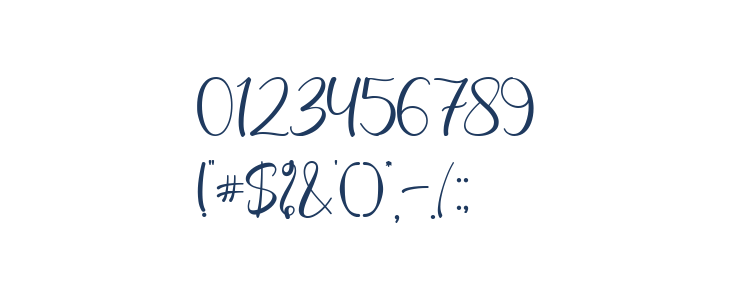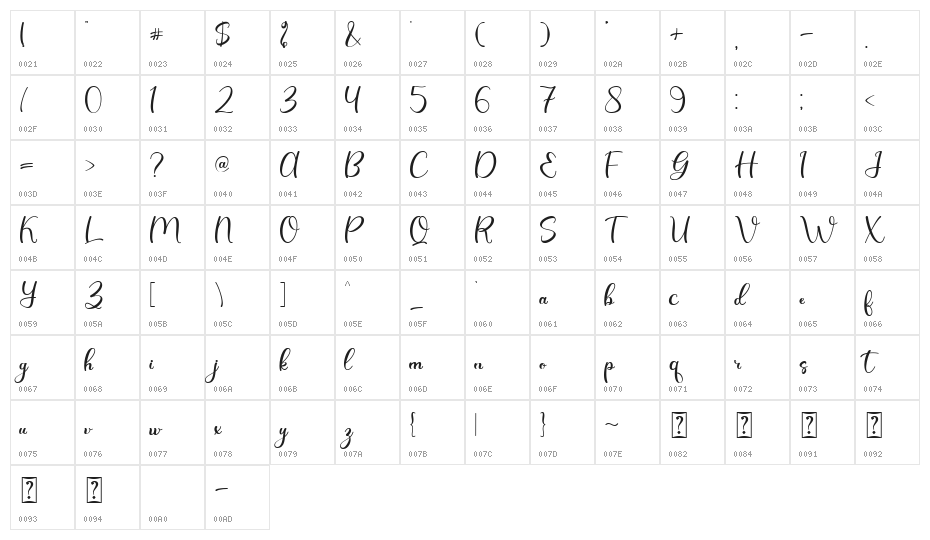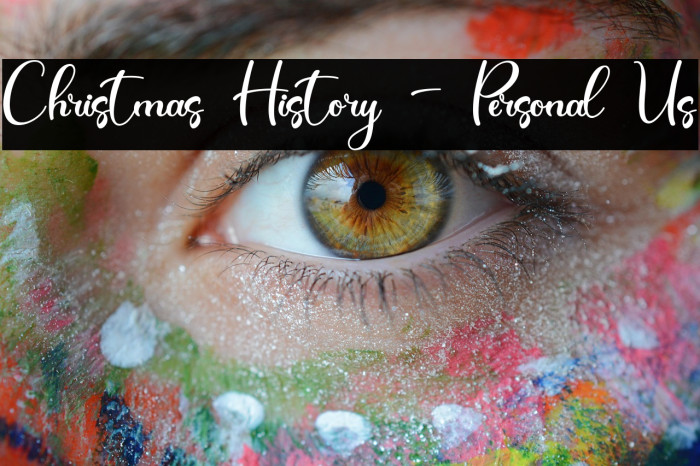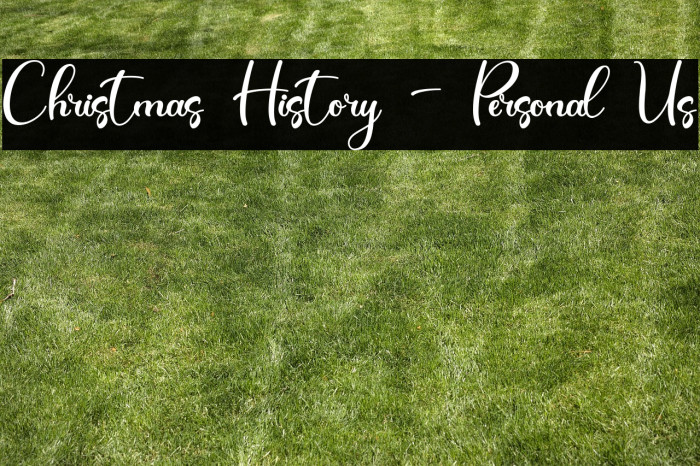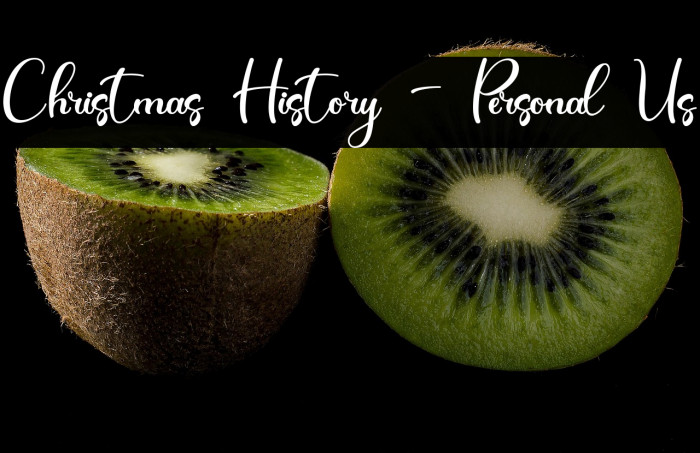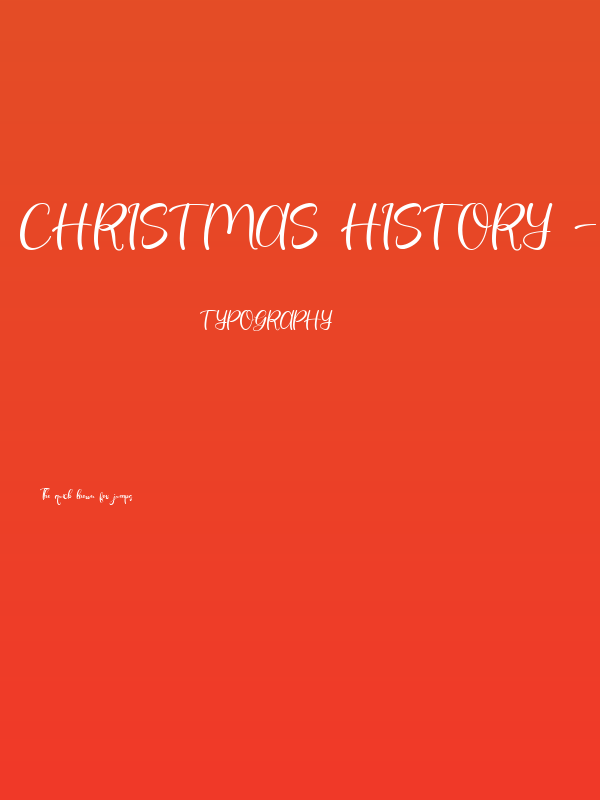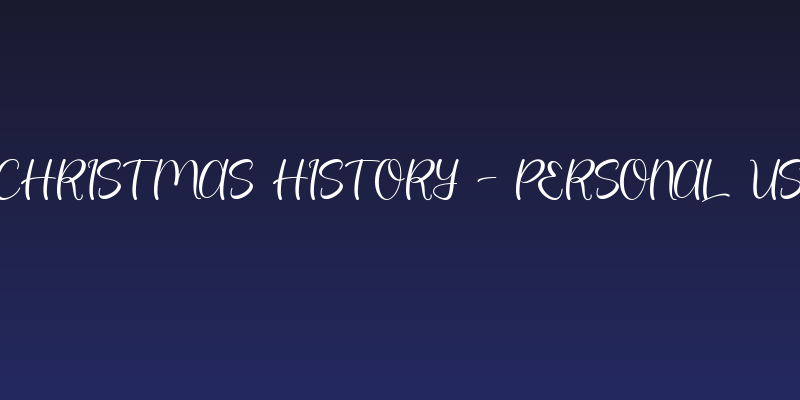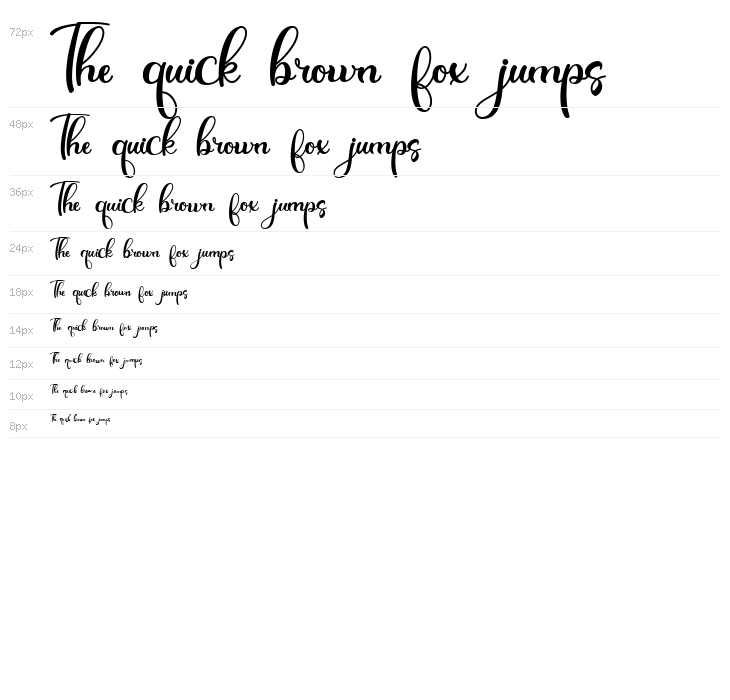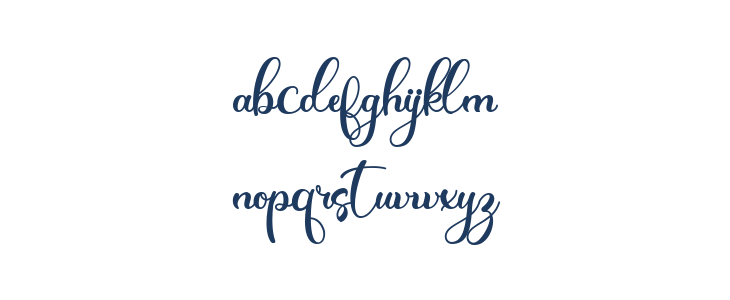
Christmas History - Personal Us Font
Christmas History - Personal Us Description
This font exudes a playful and elegant script style, characterized by its flowing, cursive letterforms. The uppercase letters are tall and slightly narrow, with a consistent stroke width that adds a touch of sophistication. The lowercase letters are more fluid, with some characters featuring loops and swashes that enhance the font's decorative appeal. The numerals are clear and legible, maintaining the script style with slight curves. Special characters are designed to match the overall aesthetic, ensuring cohesion across all glyphs. This font's charm lies in its ability to convey a sense of whimsy and elegance, making it suitable for creative and festive designs.
| Proposed Projects | Ideal for wedding invitations, greeting cards, festive banners, and branding projects that require a touch of elegance and creativity. |